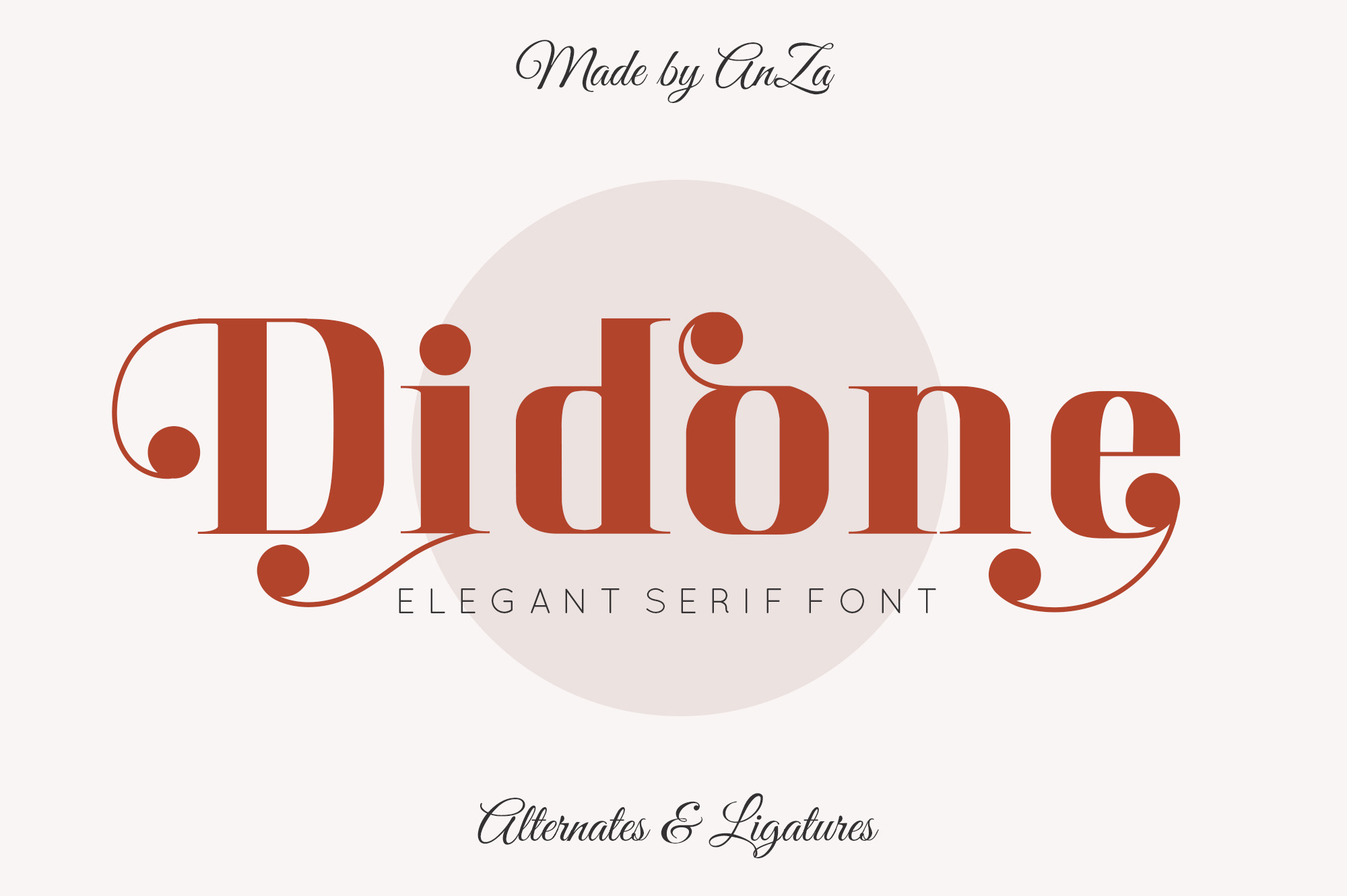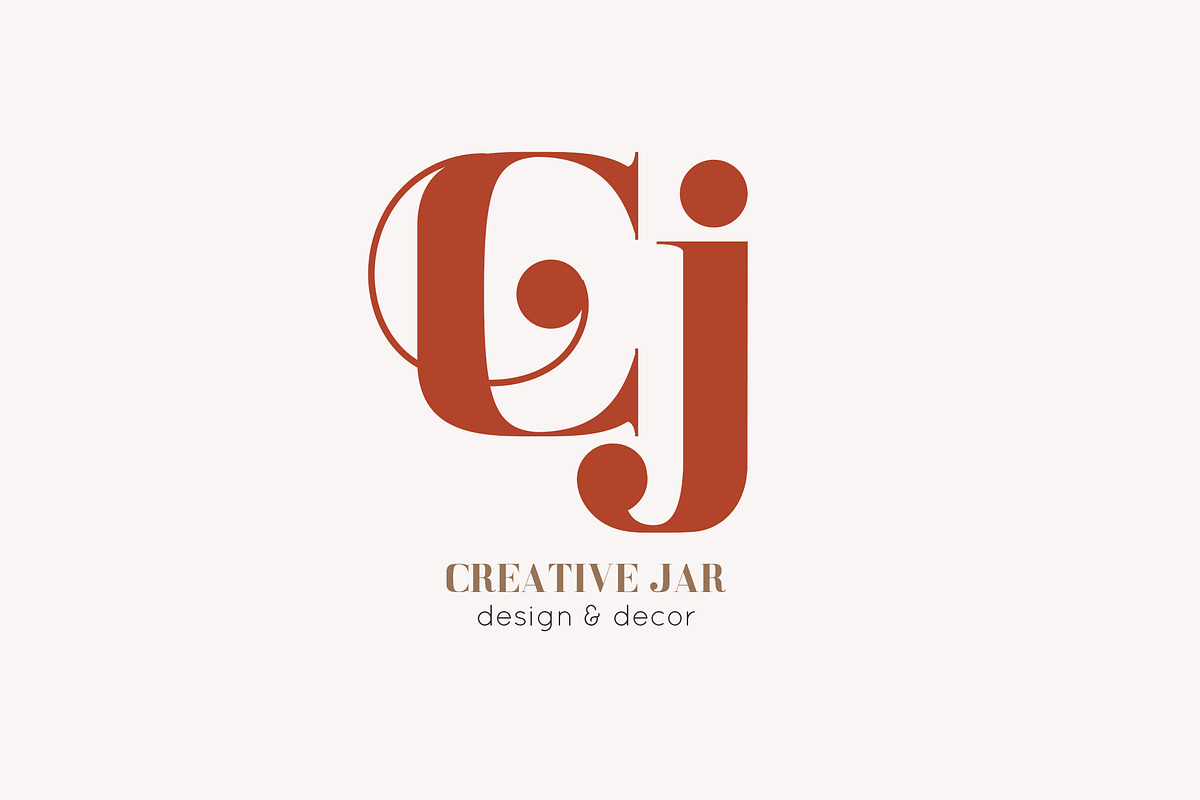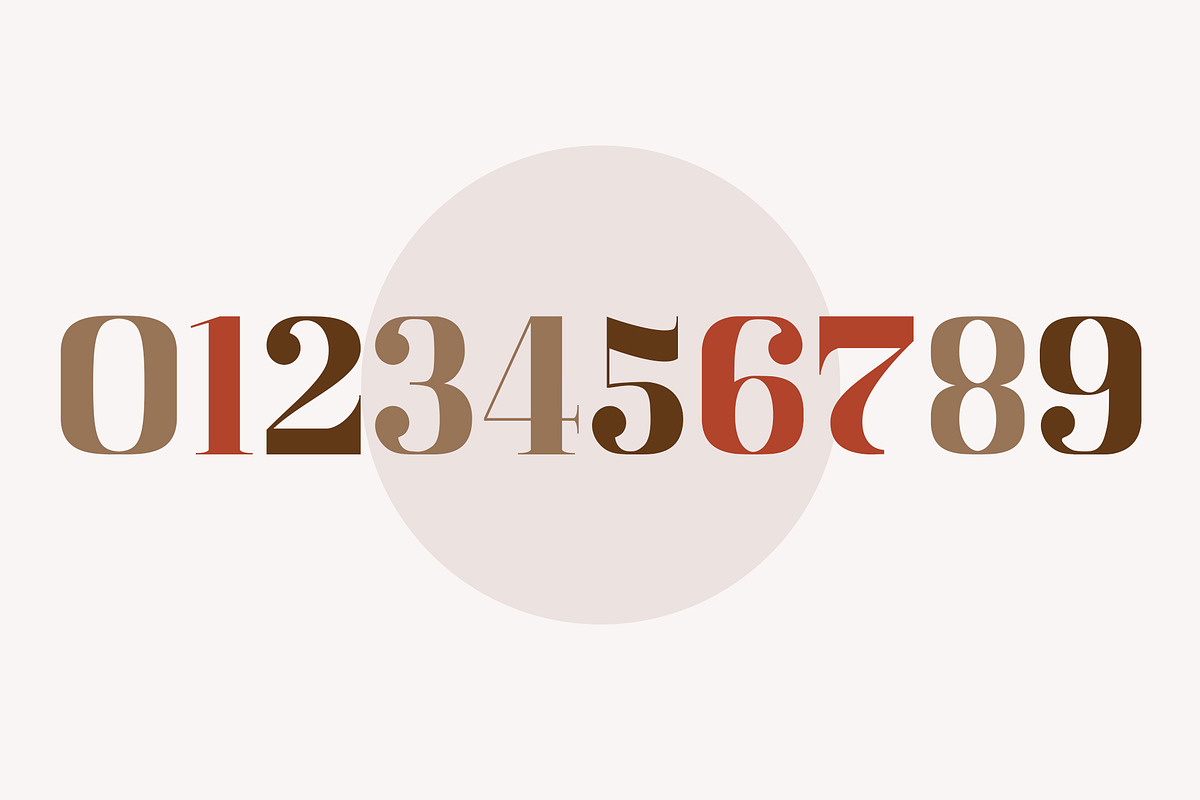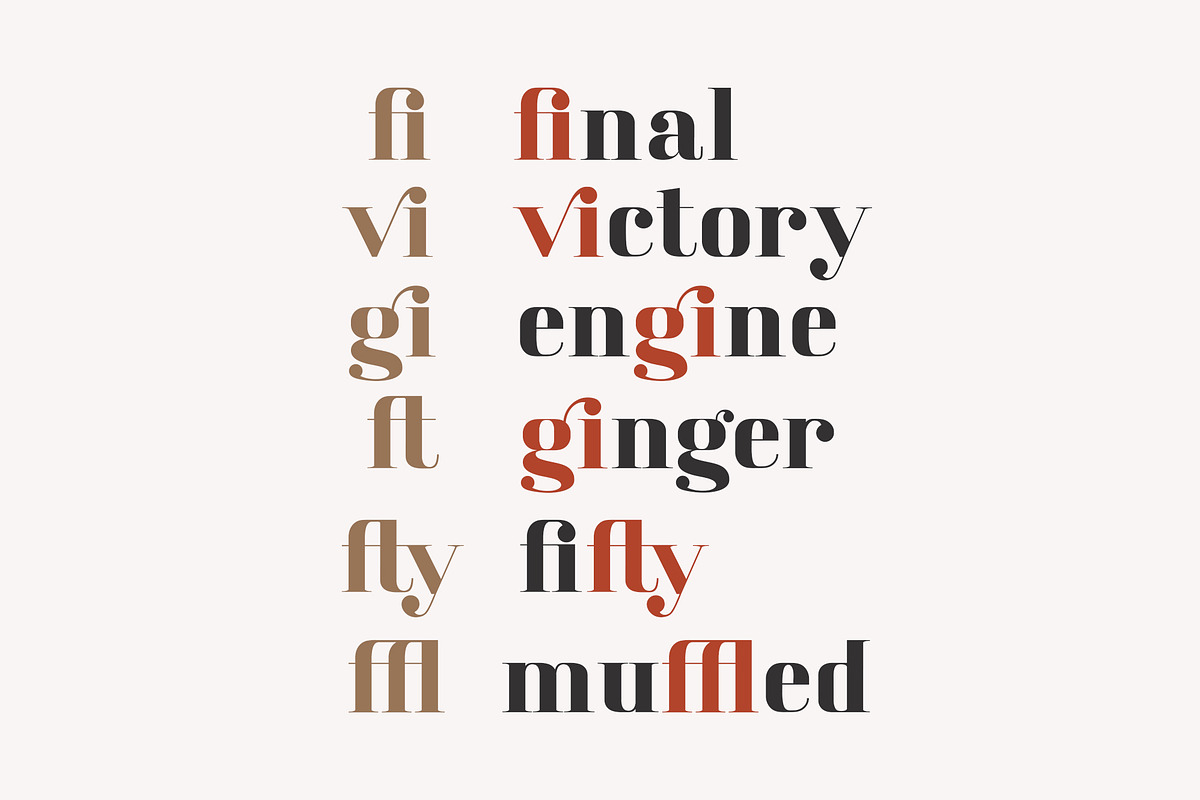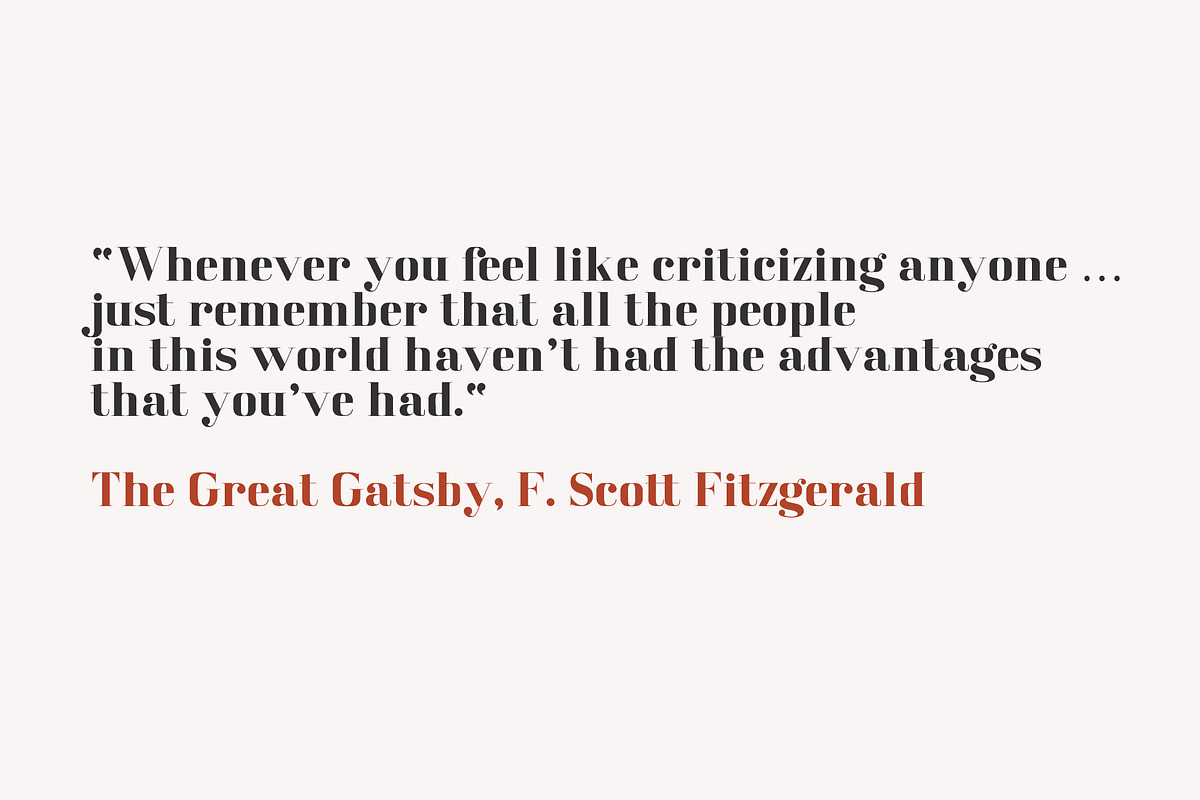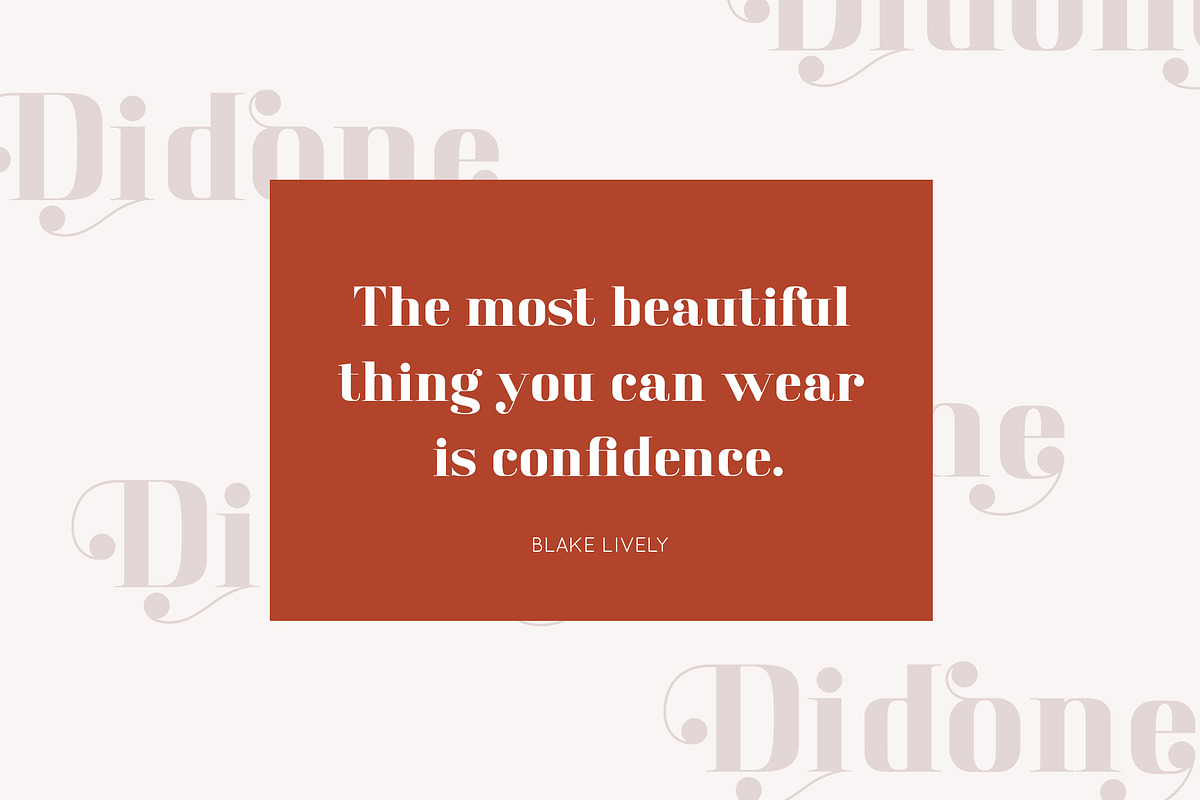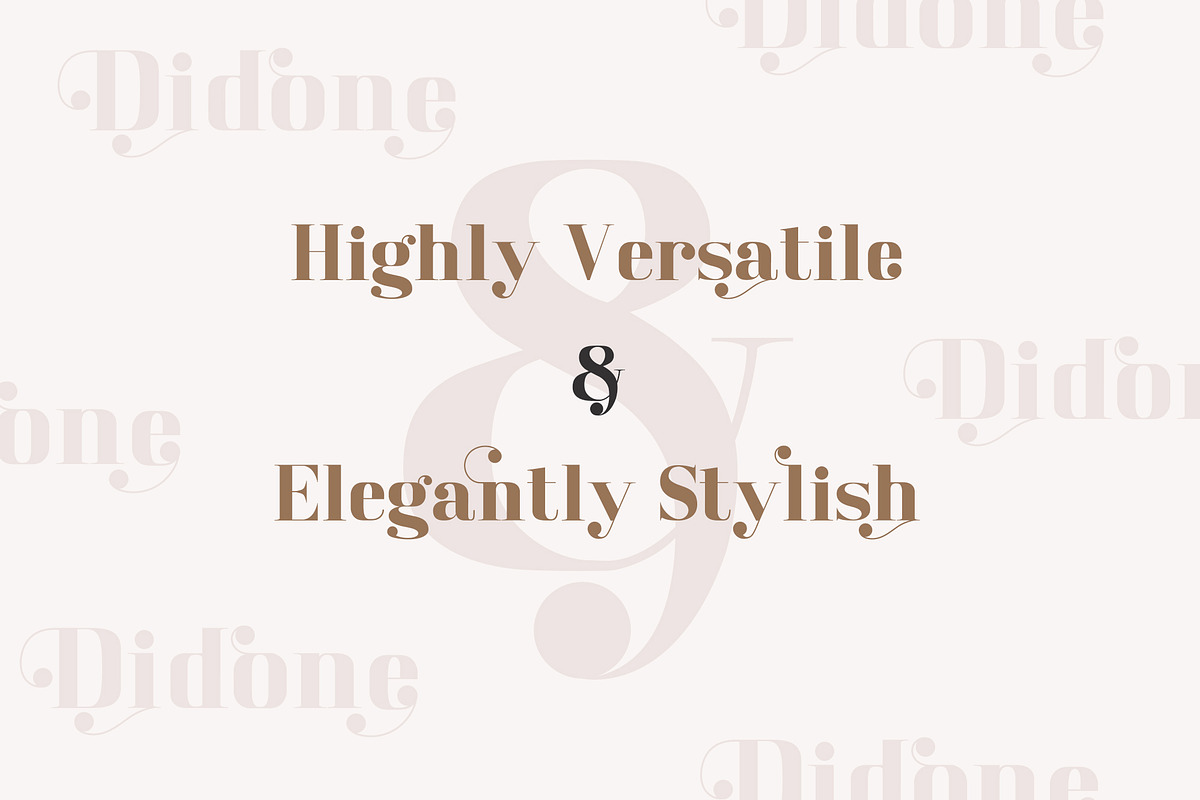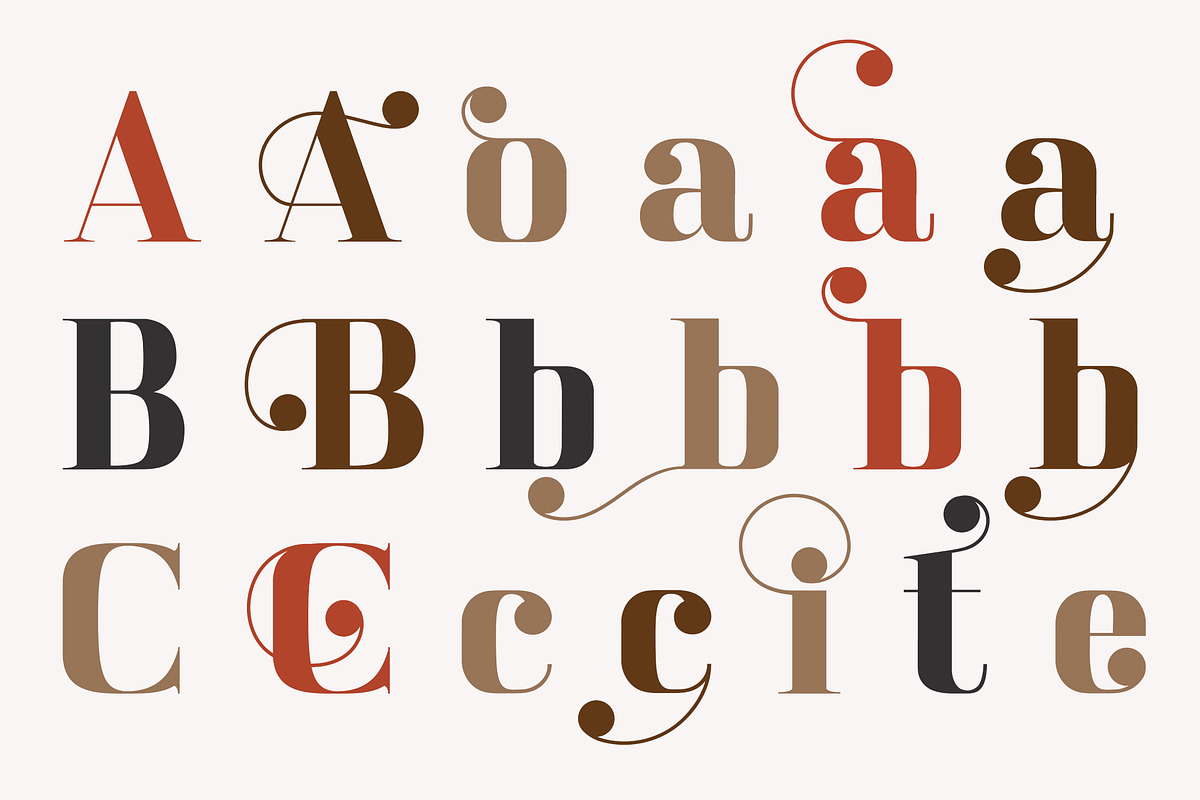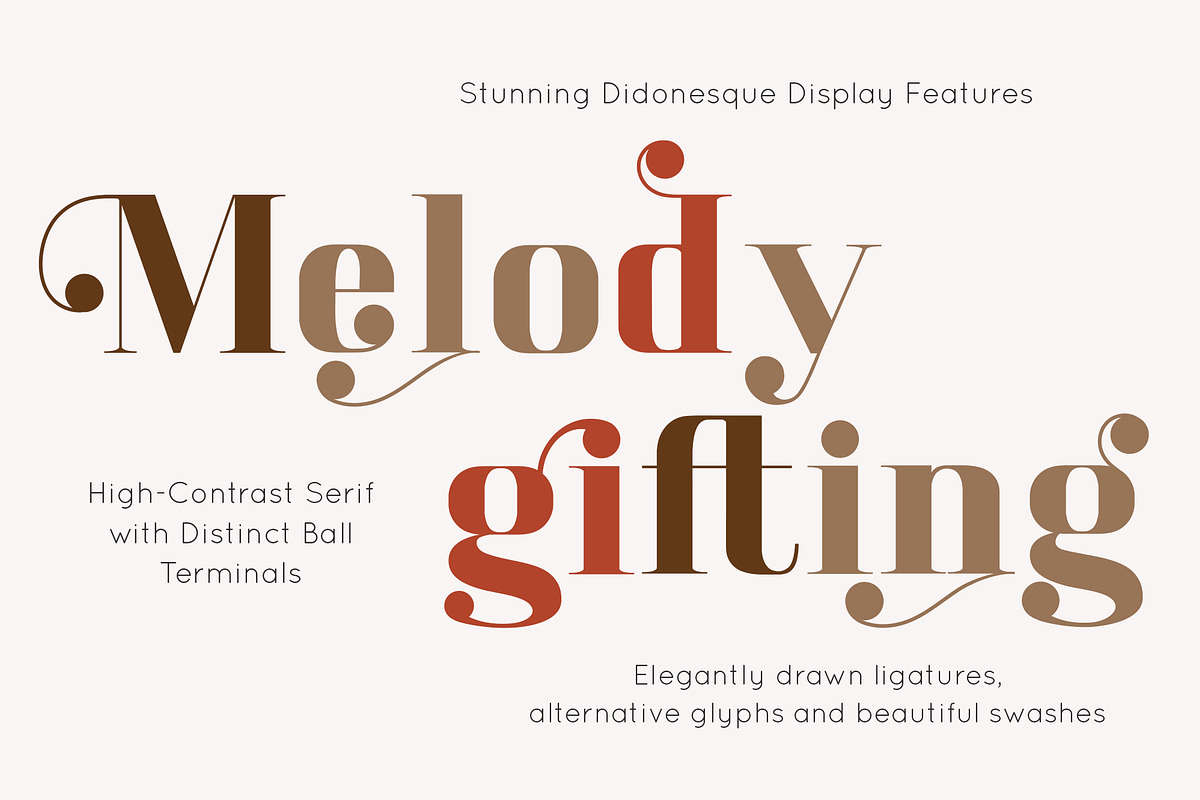
Didone Serif Elegant Font
Hello! Do you like modern serif didone genre, characterized by its elegance and extreme high contrast? Following design trends i'm sure it is very actual today.
So my new Didione is delicate and smooth typeface inspired by such concepts as elegance and simplicity, beauty and fashion. It has stunning didonesque display features with distinct ball terminals, elegantly drawn ligatures, alternative glyphs and beautiful swashes.
Didone font reflects the warmest feelings and helps you to create special and touching typographical design for every day or the happiest day in life. It is really new, universal and modern font.
Didone is the perfect choice for branding and publishing projects, posters, logos, headlines, packaging, advertising and so much more.
Didone has not only uppercase and lowercase characters, numbers and punctuations, but also alternates and ligatures.